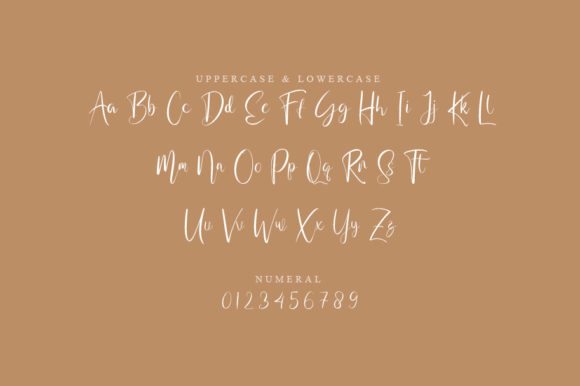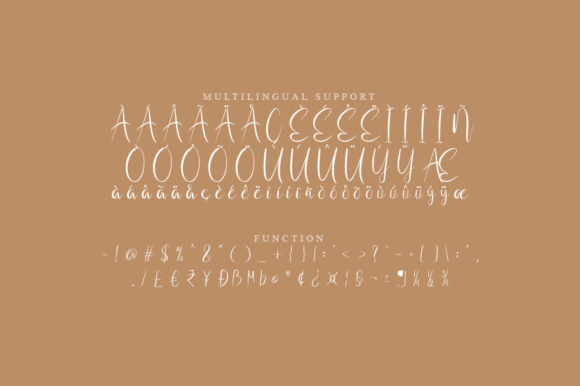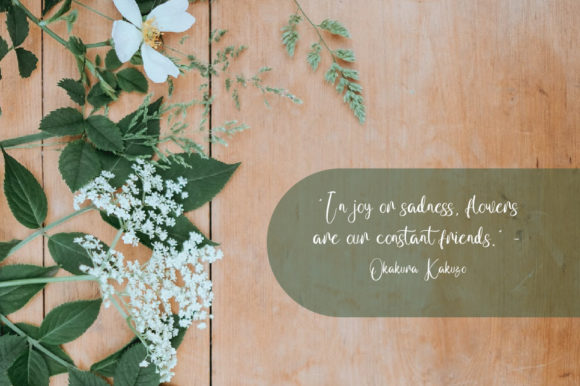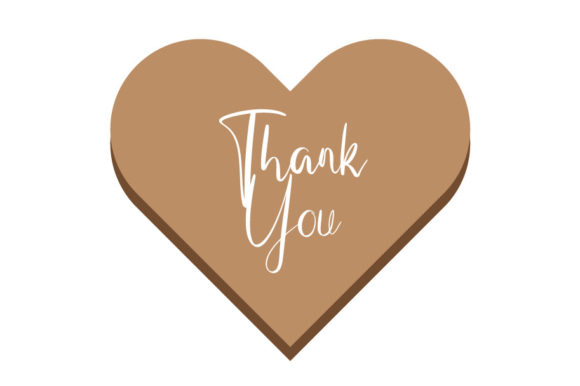
Introduction to Seboz Script Font
Have you ever been working on a creative project, pouring your heart and soul into every detail, and then suddenly, that perfect font pops up in your mind? For designers, finding the right font can be the difference between a mediocre design and a show-stopping masterpiece. And that’s exactly what we’re going to talk about today – the beautiful Seboz Script Font.
This lovely handwritten font is a game-changer for any design project, from eye-catching logos to stunning branding and quotes. Its unique and beautiful touch will bring your design to life, making it stand out from the crowd. Whether you’re a seasoned designer or just starting out, the Seboz Script Font is a valuable resource that will elevate your creative work to the next level.
Key Features of Seboz Script Font
- High-quality, hand-drawn design perfect for creative projects requiring a unique touch.
- Perfect for designers seeking a distinctive and elegant script font to elevate their creative project.
Honest Review: Seboz Script Font
I recently had the chance to work with the Seboz Script Font, and I must say it’s been a great addition to my design resources. The high-quality design makes it perfect for any creative project that requires a touch of elegance and sophistication.
One of the things that stood out to me was the transparent background option, which allows for seamless integration into any design. This is particularly useful for designers who want to maintain a cohesive look throughout their project.
- ✨ High-quality design that looks great on any background
- ✨ Transparent background option for easy integration
As with any font, there are some limitations to consider:
- ⚠️ Limited flexibility in terms of customization options
- ⚠️ May not be suitable for projects that require a more modern or edgy look
Overall, I’m really impressed with the Seboz Script Font. It’s a solid choice for designers who want a high-quality, elegant font that’s easy to work with. Just be sure to consider its limitations before making a decision.
Tips for Getting the Most Out of Seboz Script Font
To get the most out of the Seboz Script Font, experiment with different font sizes, styles, and colors. Use it in combination with other design elements to create a unique and creative design. You can also use the font to create a consistent brand identity for your business or organization.
The Seboz Script Font is ideal for creative projects such as wedding invitations, birthday cards, and social media graphics. It’s also great for branding and marketing materials, such as logos, business cards, and brochures.